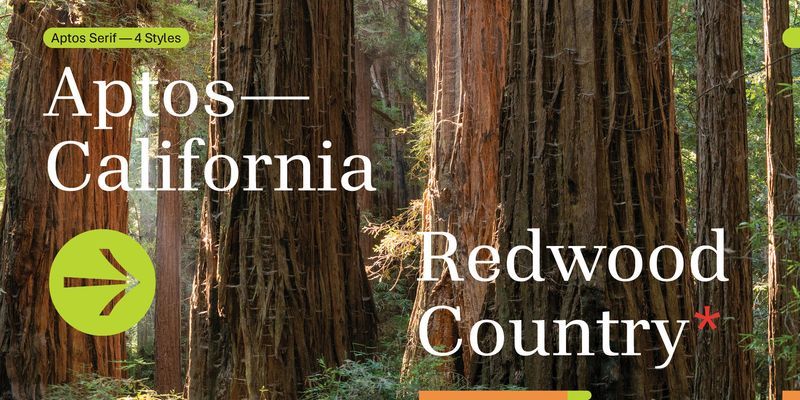
Aptos Serif is a highly readable contemporary text typeface, a serif complement to the sans serif Aptos. Aptos was inspired by mid-20th-century Swiss typography; Aptos Serif takes its cue from modern, rational 20th-century typefaces with high contrast between thick and thin strokes and a vertical, up-and-down axis of stress within the letters. Its stroke endings, whether flat or serifed, are clear-cut and emphasize order and restraint; the spacing between letters is generous enough to keep them easy to read en masse, without any visual crowding.
Aptos Serif, like its sans serif counterpart, expresses simplicity and rationality in a highly readable form, with what designer Steve Matteson calls “the austerity that would speak to the huge variety of Office documents created every day.” In Word, PowerPoint, or email, Aptos Serif is appropriate for both body text and headlines or titles. It comes with two weights, Regular and Bold, with complementary italic styles. The italic letters have a restrained cursive swing, within a rational structure.
Aptos Serif offers extended support of the Latin, Greek, and Cyrillic alphabets, along with fractions, arrows, and both black and white circled numbers.